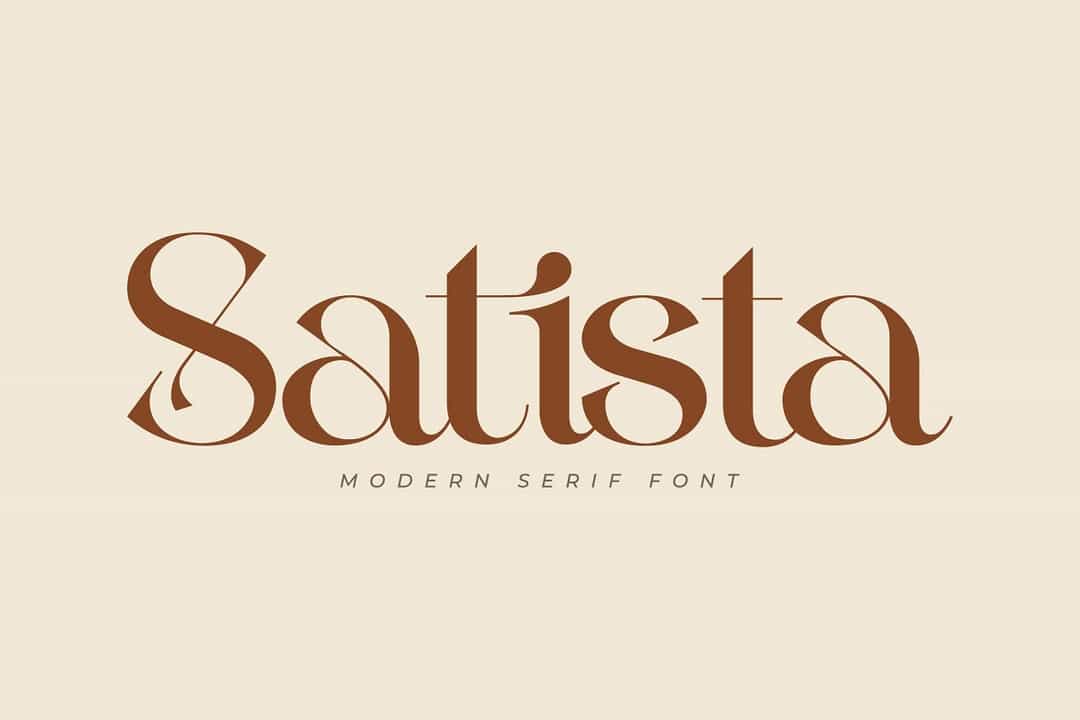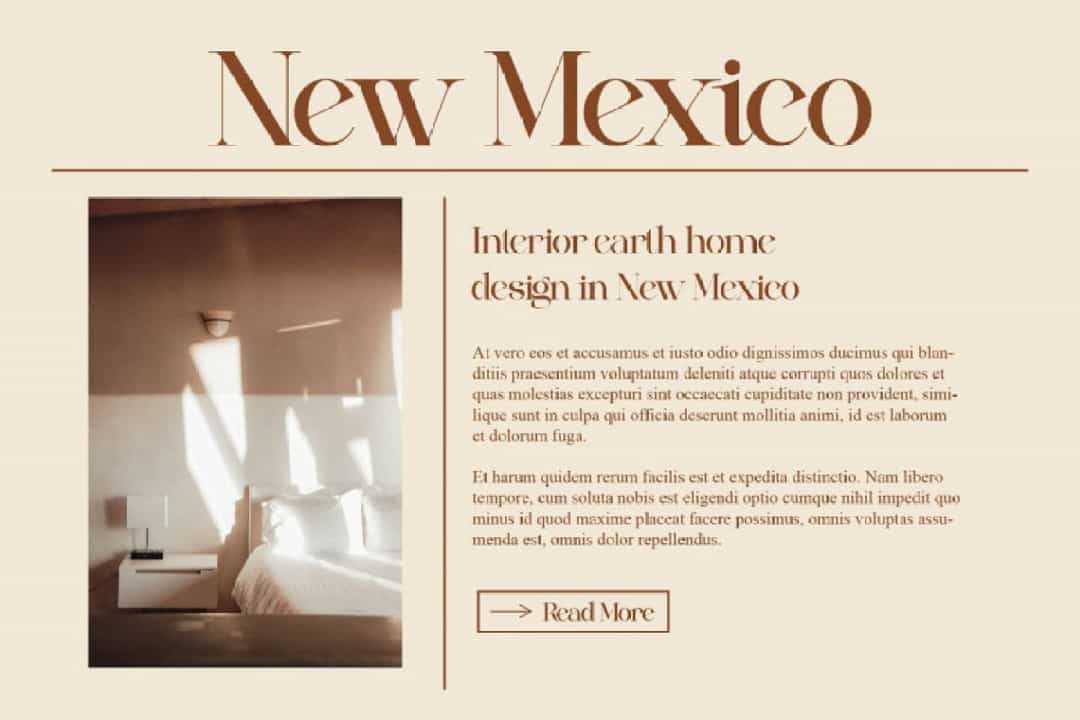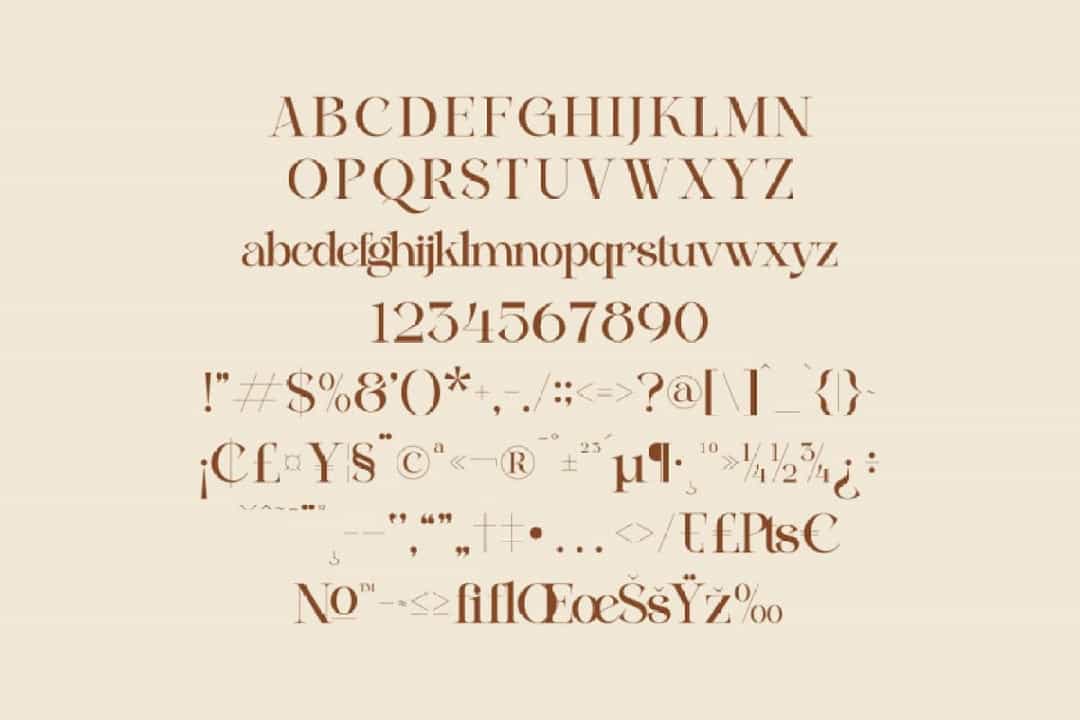
Storytype created Satista font as a modern serif and classic typeface that offers both elegance and modernity. Perfect for logo designs, book or film titles as well as fashion brands’ letterheads and clothing quotations this typeface offers its signature style in every letter it forms.